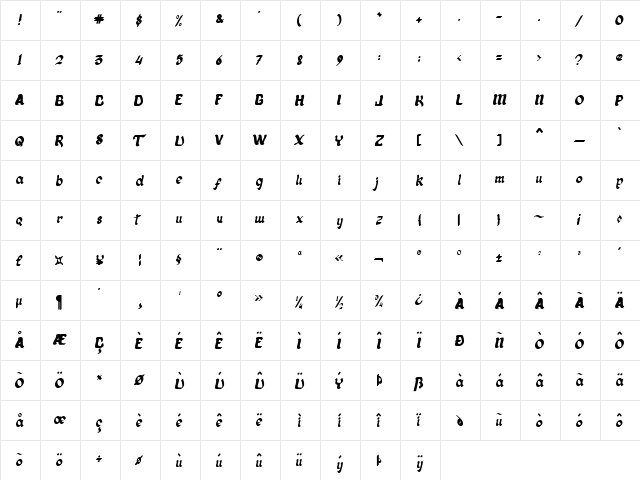
Alladhina Regular
| Designer | Krisna Teja |
Design Context for Alladhina Typeface
Alladhina is a composed and adaptable typeface that performs quietly and consistently across a wide range of design contexts.